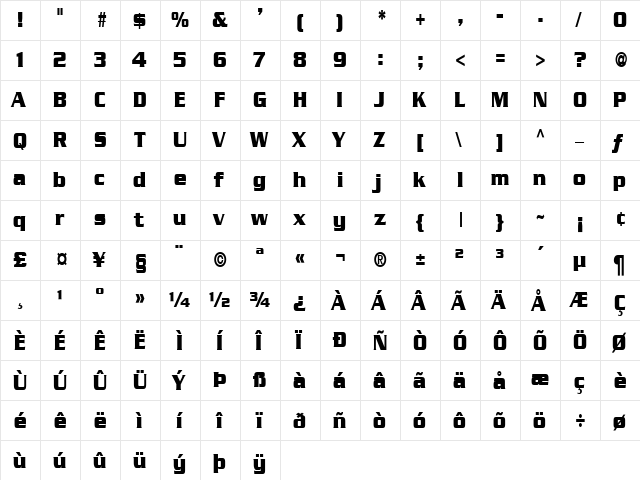
FZ ROMAN 11 COND Normal
Design Context for FZ ROMAN 11 COND Typeface
FZ ROMAN 11 COND offers clean, dependable letterforms without strong stylistic allegiance, making it a practical choice for designers who need flexibility. The condensed width makes it efficient for tight spaces without sacrificing legibility.